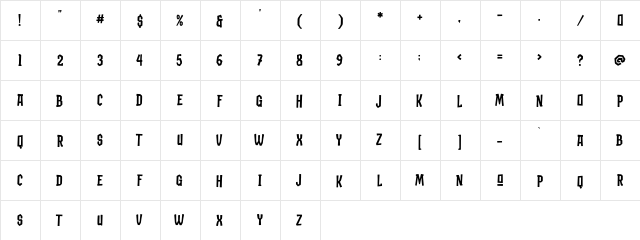
Riot block is a composed and adaptable typeface that performs quietly and consistently across a wide range of design contexts.
Pro Tip: Use Riot block in both headline and body roles to test its range before committing to a single application.